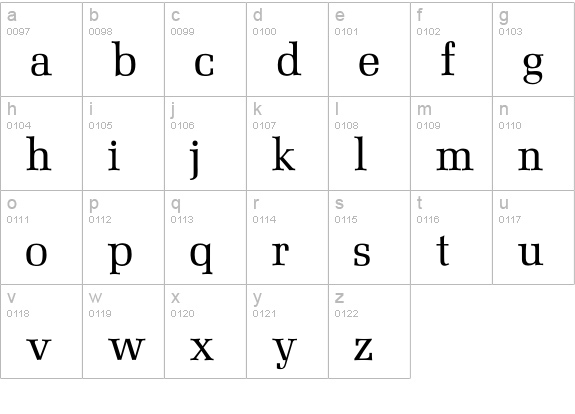
MezzoFont Font Details
Introducing MezzoFont, a versatile and elegant font perfect for a wide range of design projects. This modern typeface strikes the perfect balance between sophistication and readability, making it suitable for both print and digital applications. With its clean lines and classic styling, MezzoFont adds a touch of sophistication to any design. MezzoFont is available for free download at FontsMarket.com, where you can access this high-quality font without any cost. Whether you are working on a branding project, advertising campaign, or simply looking to elevate your creative designs, MezzoFont is sure to impress with its timeless appeal. Don't miss out on the opportunity to enhance your design projects with MezzoFont. Download this stunning font today and elevate your designs to the next level.